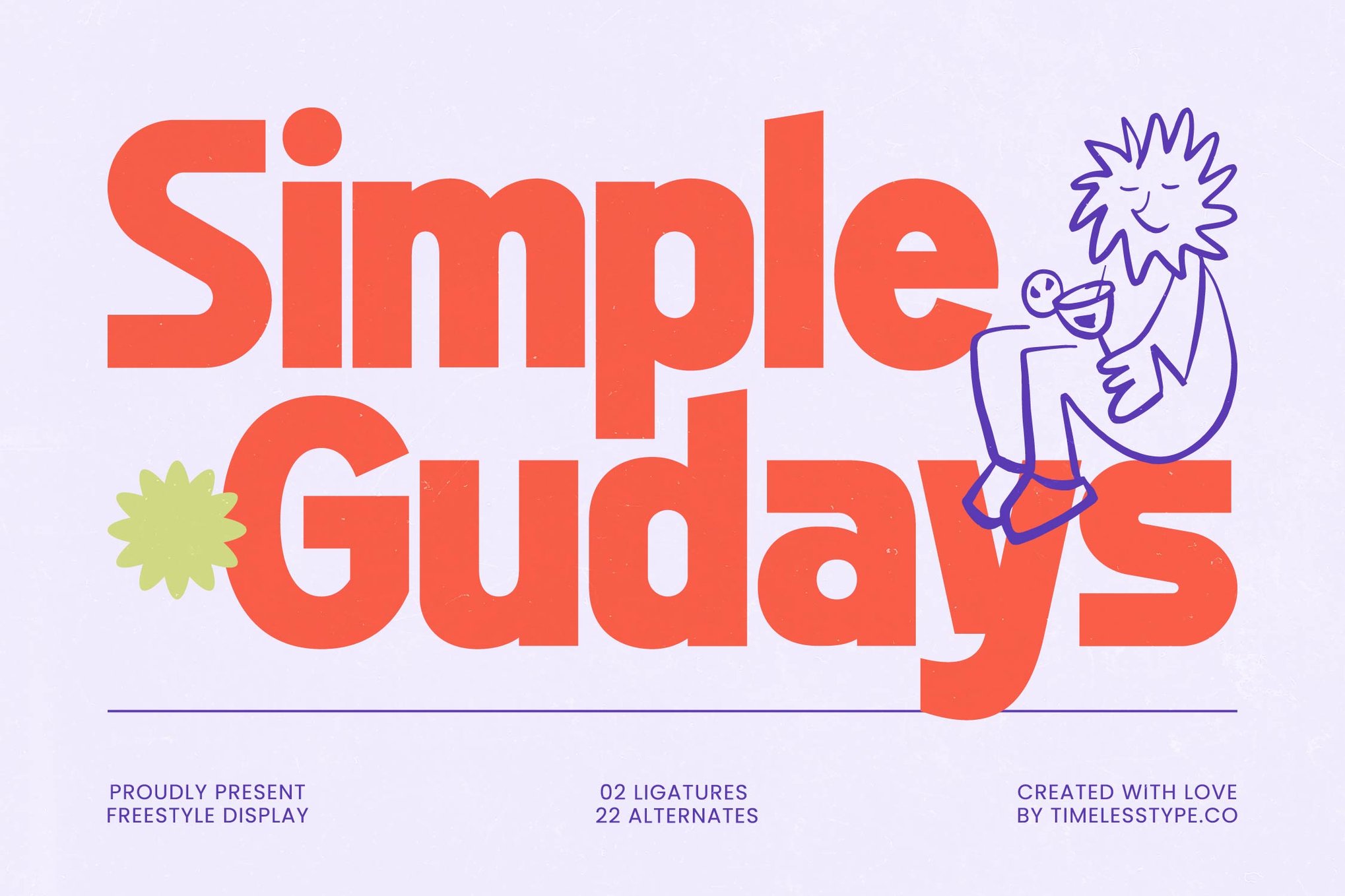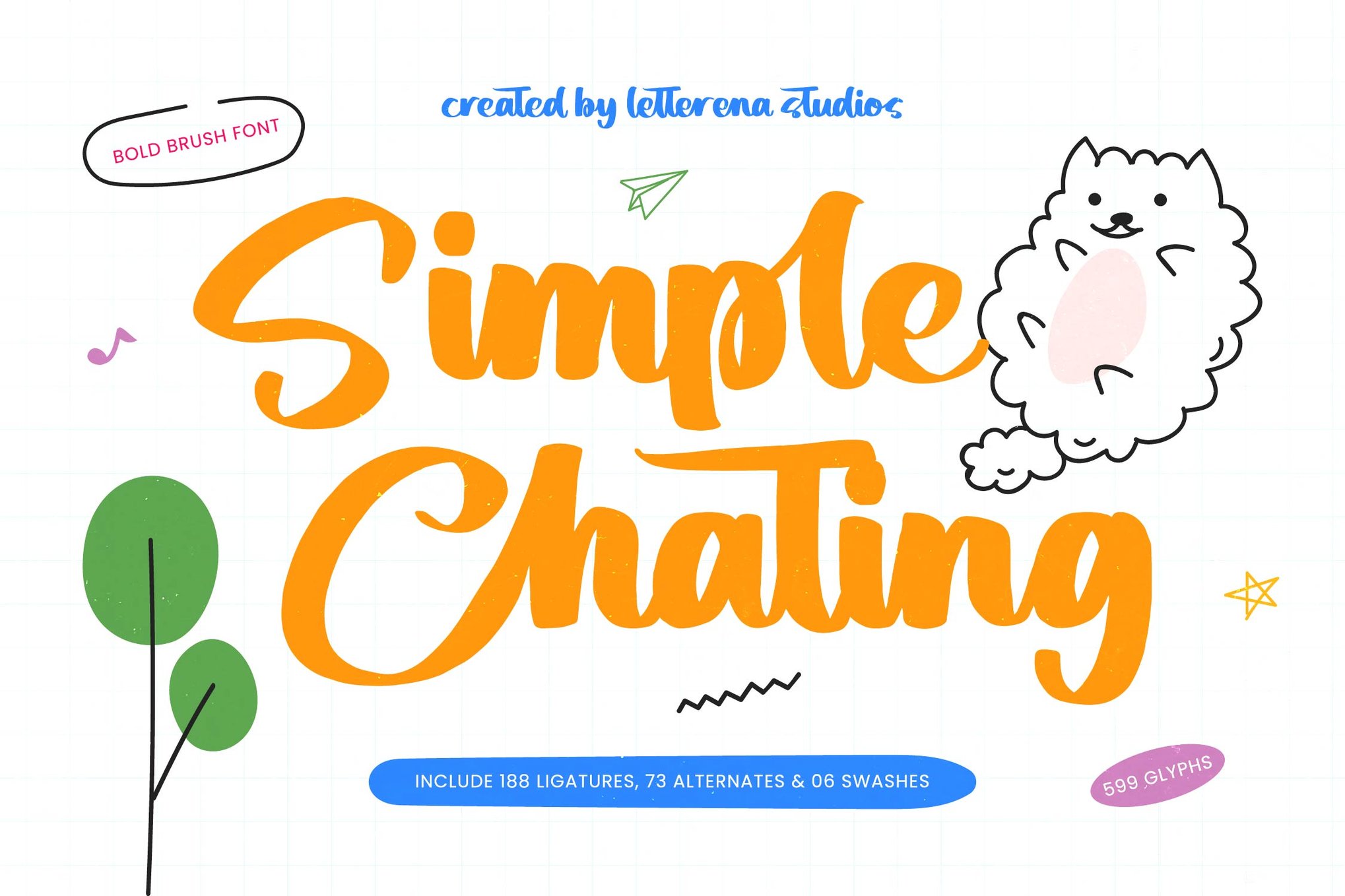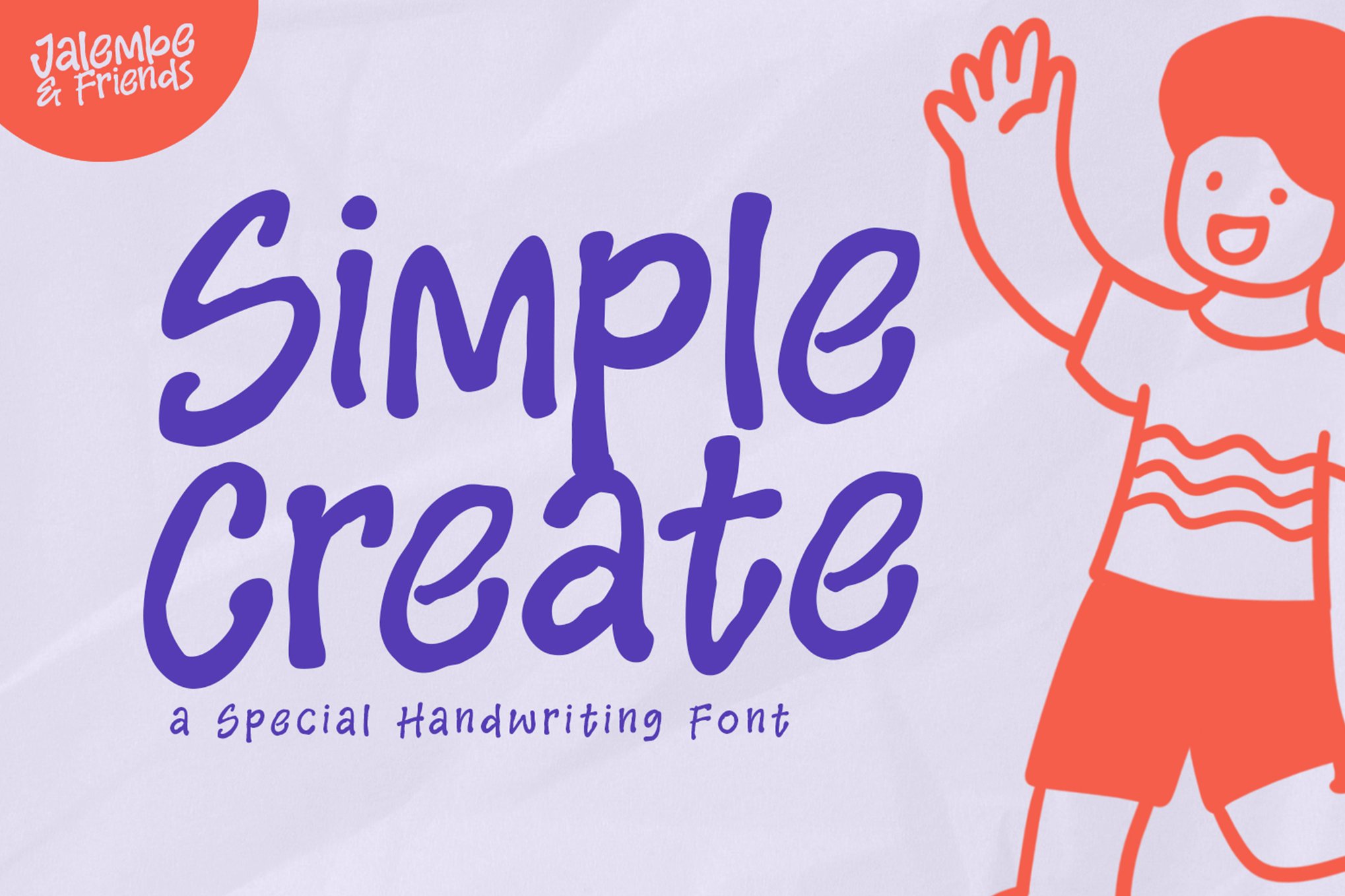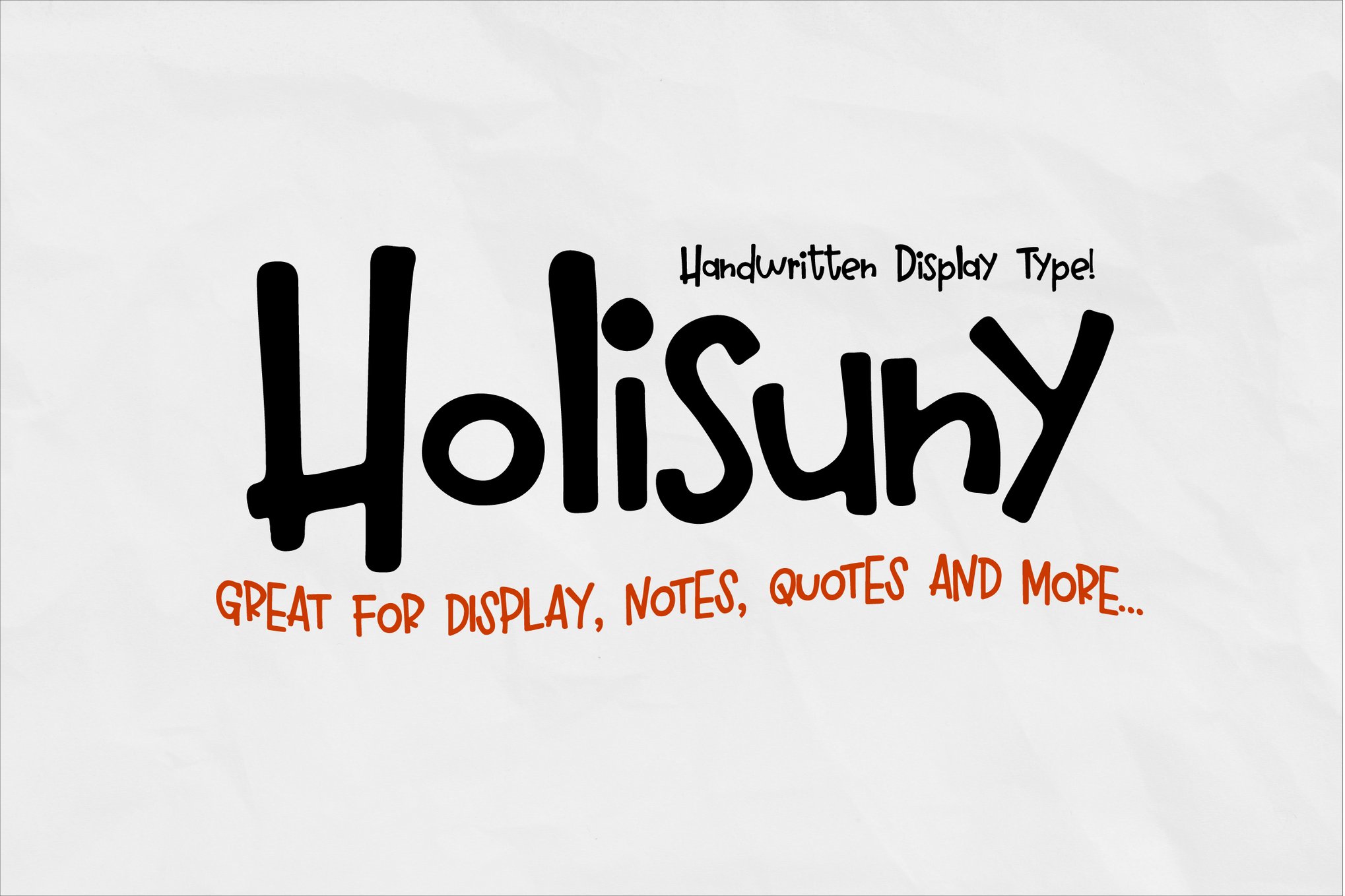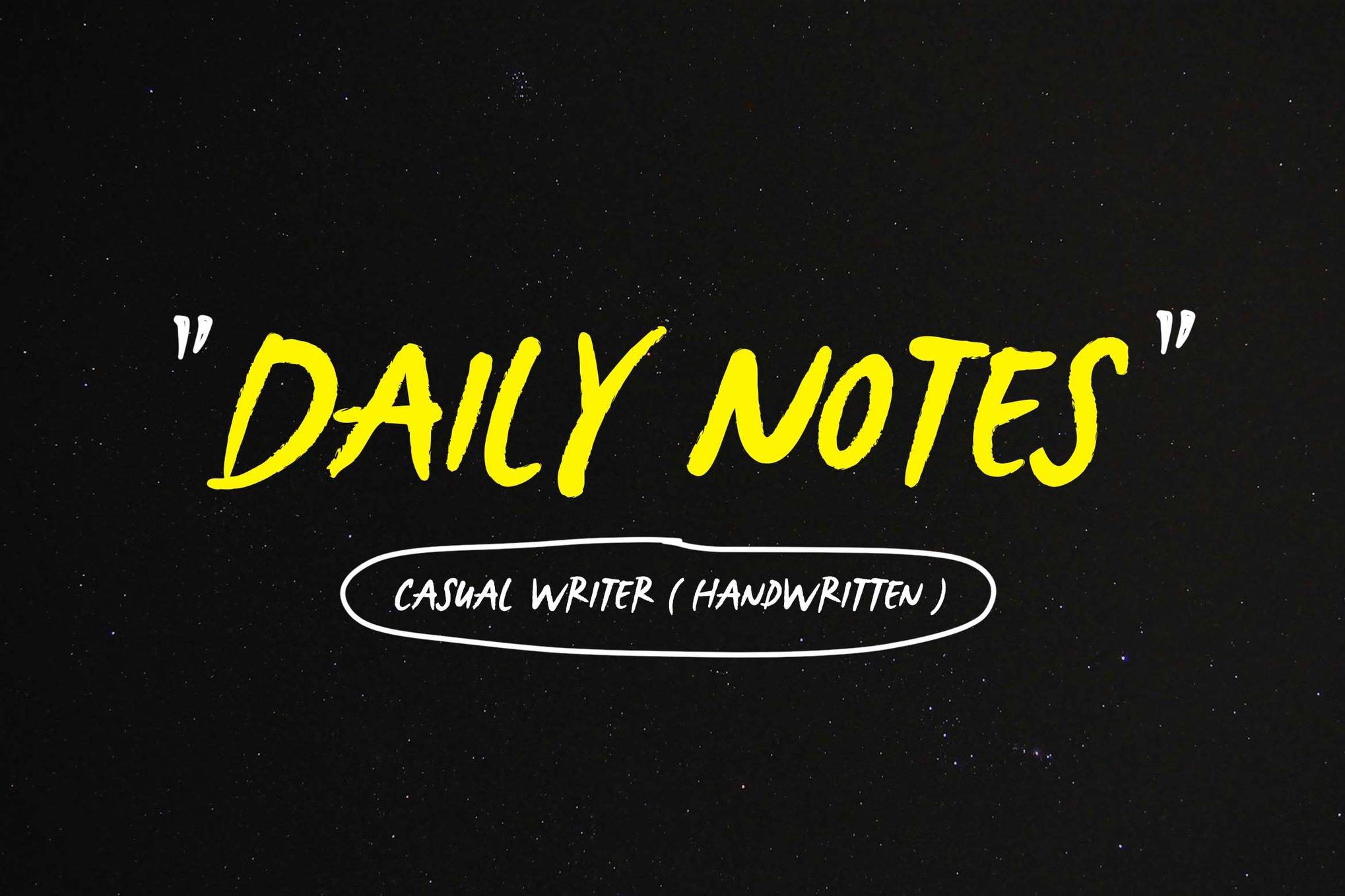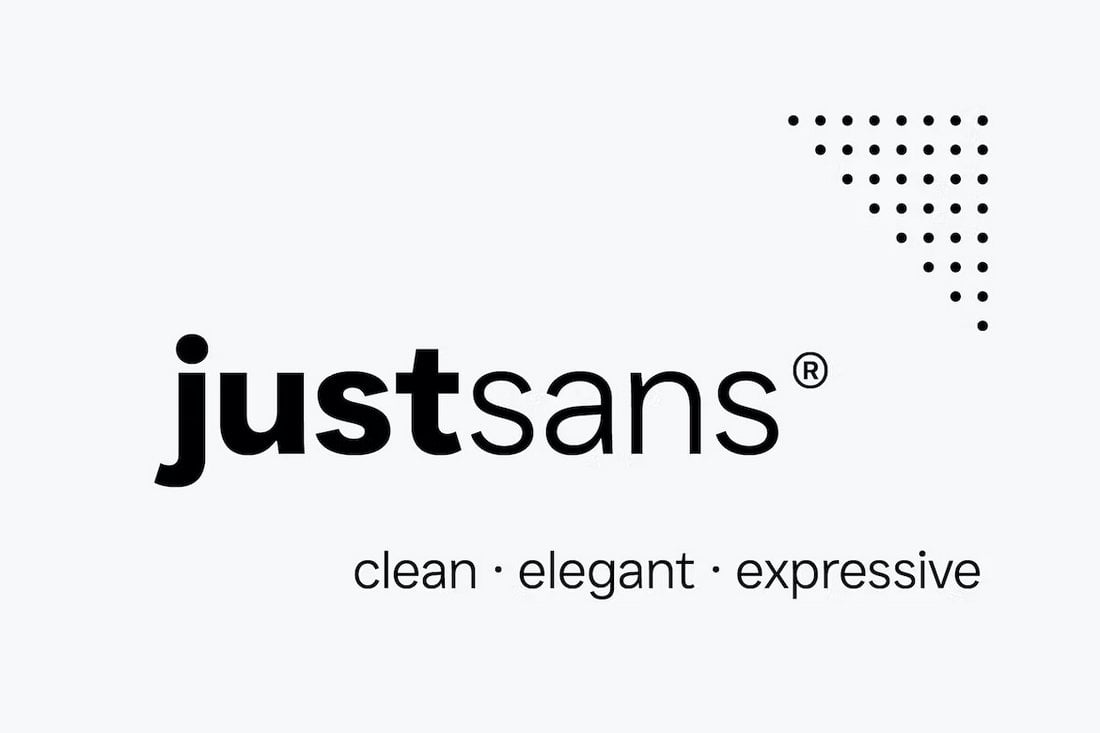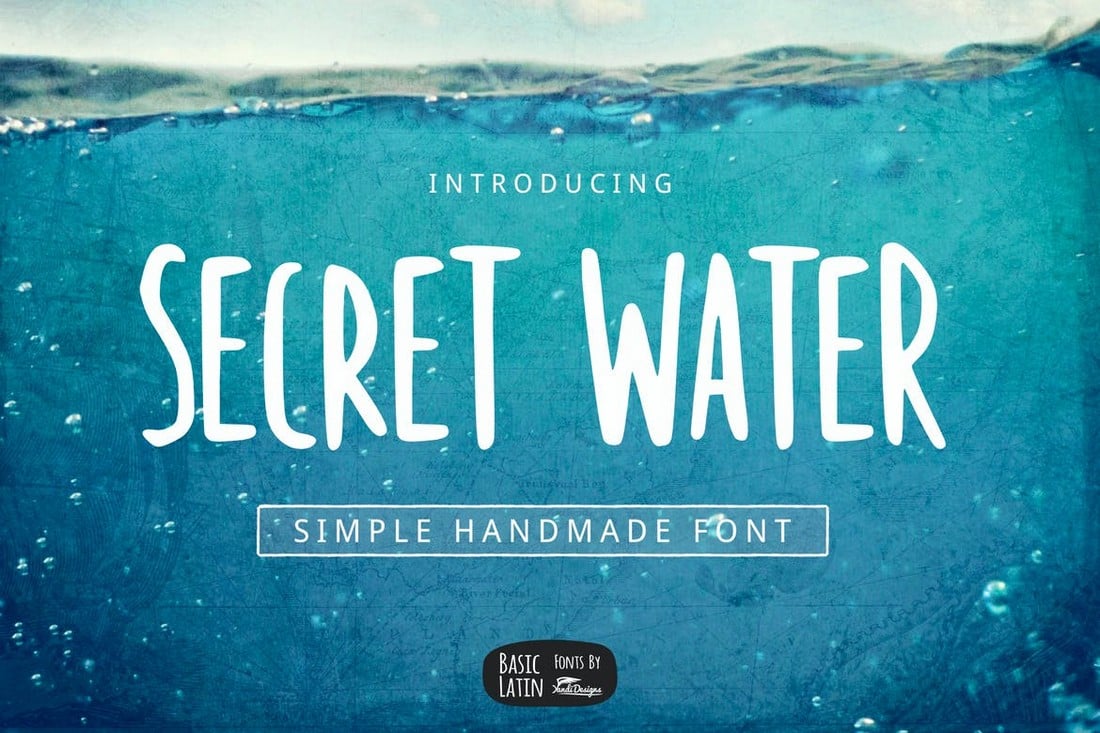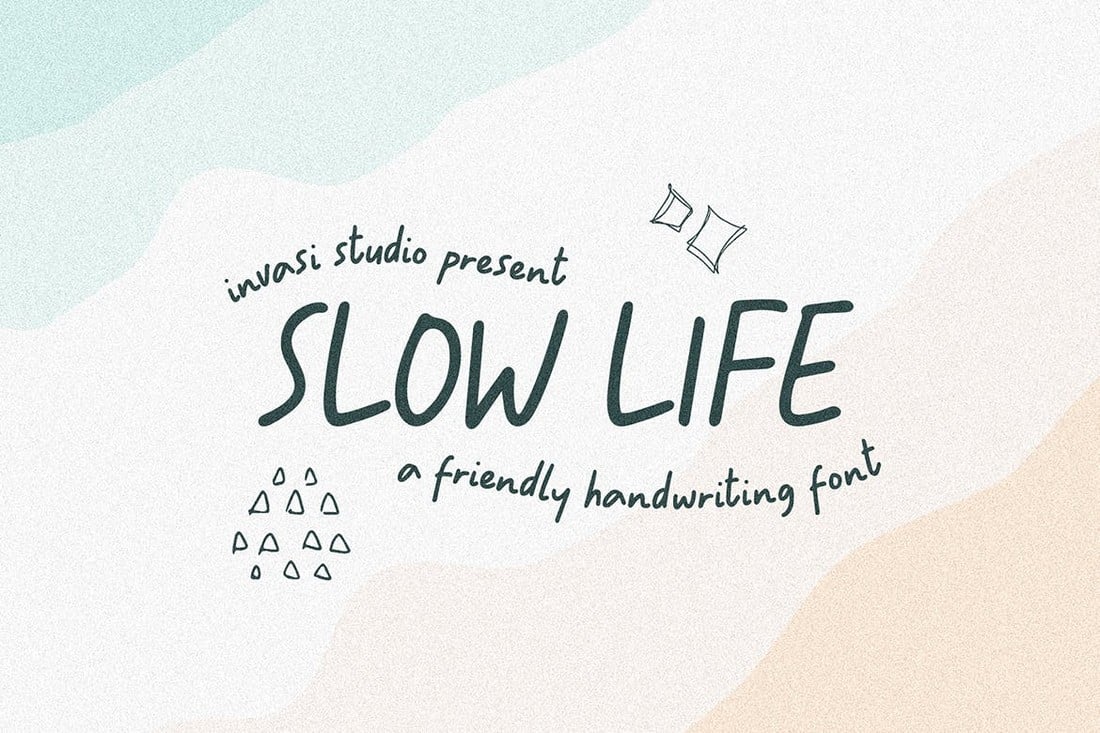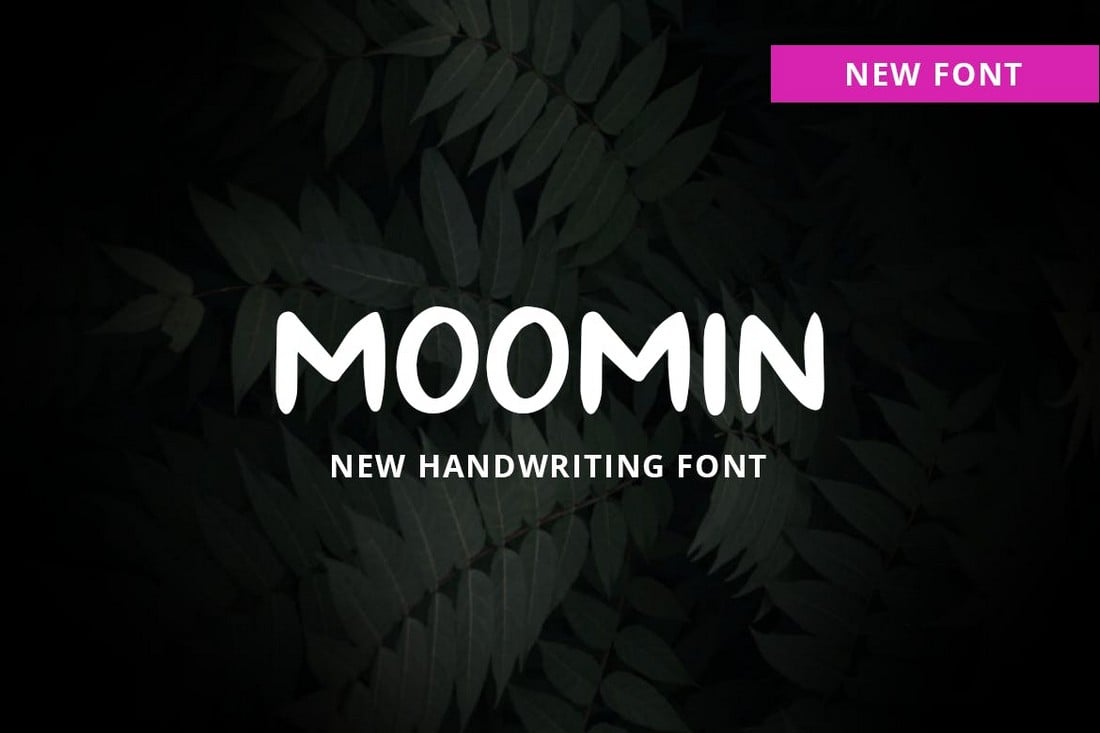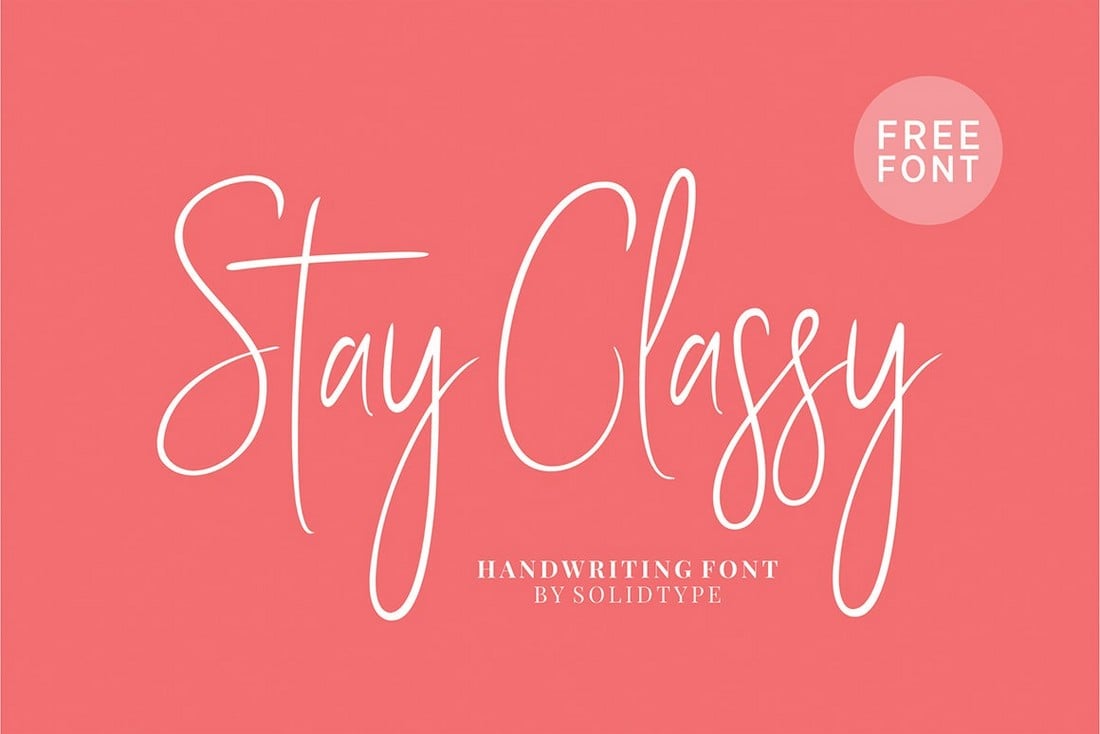
There are some fonts that give you a warm, friendly feeling and make you feel right at home. This collection is all about those friendly fonts.
Fonts are one of the few design elements that have the power to evoke emotions. With the right typeface, you could create a nostalgic feeling or even a happy, playful feeling through your designs. But not all fonts have this ability to evoke emotions.
We found a few fonts with friendly and simple designs that allow you to create a pleasant, peaceful, and familiar feeling through your titles, headings, and paragraphs. These fonts are great for creating designs with a personalized look and feel.
Explore the fonts collection below and see if you can find a simple font for your project.
Lovika – Simple Contemporary Font
Lovika is a stylish, modern sans-serif font with clean lines. Ideal for professional designs, it’s perfect for corporate branding, presentations, and web design, offering clarity, sophistication, and readability. Versatile and elegant, it can be used across digital and print media, enhancing your projects’ overall professionalism.
Sanswhimsy – Simple Friendly Font
Sanswhimsy is a bold, handwriting-inspired font that lends a unique, handmade touch to various design elements such as titles, quotes, and artwork. Its versatility makes it an outstanding choice for headlines, logotypes, and packaging, as well as for creative media including movies, games, and book covers.
Simple Gudays – Freestyle Friendly Font
Simple Gudays is a bold and playful freestyle font designed to bring a cheerful touch to any project. Its chunky shapes and soft edges make it ideal for children’s products, lifestyle branding, and social media graphics. With versatile ligatures and alternates, it offers expressive typography options for designers.
Simple Chating – Bold Simple Brush Font
Simple Chating is a bold brush font that blends playful, energetic character with easy readability. Its expressive brush strokes, smooth curves, and warm, approachable feel make it ideal for creative branding and dynamic projects. Featuring 188 ligatures and 599 glyphs, this font offers great stylistic flexibility and modern charm for any design, from social media graphics to eye-catching headlines.
Simple Create – Friendly Handwriting Font
Simple Create is a friendly handwriting font perfect for adding a cheerful touch to your designs. Ideal for logos, posters, and greeting cards, it includes OTF and TTF formats, standard glyphs, and numerals. It’s perfect for kid-friendly design projects as well.
Holisuny – Simple Handwritten Font
Holisuny is a charming handwritten font with natural, artistic strokes, perfect for adding a personal touch to your designs. Ideal for medium to large text, it includes alternative characters for creative versatility. It’s also great for adding a personalized look to your typography.
Daily Notes – Simple Handwritten Font
Daily Notes is a charming, versatile typeface that blends elegance with a modern touch. Ideal for diverse projects like logos, stationery, and wedding invitations, it captures both masculine and feminine aesthetics. Supporting a wide array of characters, it’s perfect for designers seeking a friendly, stylish font suitable for any creative endeavor or branding need.
Bango Tango – Fun Playful Font
Bango Tango is a delightful sans-serif typeface that adds a playful charm to any project. This cheery and engaging font with its smooth curves can turn ordinary projects into upbeat, fun and vibrant pieces. Its versatility makes it a fantastic choice for diverse projects like children’s books, social media graphics, branding or party invites.
Fascond – Simple Modern Font
Fascond is a simple and contemporary font with a minimalist gradient touch. Its streamlined, compact style offers immense versatility, making it great for a multitude of design projects. This typeface comes with various file types (Otf, Ttf, woff and woff2), and it excels in creating stand-out headlines, logotypes, or covers.
Mojored – Simple Friendly Font
Mojored is a unique and playful font that is as fun as it is flexible. With friendly, bouncy curves and a range of weights from thin to black, this font provides fresh versatility for brand identity, posters, social media, and more. Along with unique ligatures and multilingual support, Mojored expertly maintains crisp readability whilst adding energetic cheer.
Varena Rounded – Friendly Font
Varena is a simple font that beautifully fuses modern geometric design with an inviting feel. Its smoothly rounded edges and balanced proportions ensure clear readability, making it an excellent choice for websites, logos, and promotional materials. With its versatile appeal, it emits a professional, contemporary vibe while radiating warmth and accessibility.
Happy Season – Modern Playful Font
Happy Season is a lighthearted and versatile sans serif font. With a total of seven varied styles, its lively, friendly design shines with rounded edges that add a welcoming touch. It is highly suitable for trendy packaging labels, distinctive logos, bold headlines, and stylish poster designs.
Softsanic – Friendly Font
Softsanic is a friendly and versatile, rounded sans-serif font that emanates an abstract grunge style. Offered by Graphicook, it’s conveniently provided in Otf, Ttf, woff, and woff2 files. Ideal for an array of projects, Softsanic shines in uses ranging from headlines, logotypes and magazine layouts to packaging, game covers, and book designs, easily making any design pop.
Quick Notes – Friendly Handwritten Font
Quick Notes offers a lively, easy-to-read style ideal for adding a personal touch to your creative projects. With a set of uppercase and lowercase glyphs, numbers, symbols, punctuation, and multilingual support, it’s perfect for social media posts, branding, and more. It also provides ligatures for a seamless design experience.
Belmein Rounded – Friendly Font
Belmein Rounded is a modern, friendly font that unites geometric precision with soft, rounded edges for a welcoming feel. Its unique inktrap details further enhance clarity and print quality. Ideal for digital interfaces and contemporary branding, this font boasts versatility and impact.
Nothink – Simple Handwritten Font
This is a playful yet readable handwriting-style typeface offering organic authenticity. Its appealing imperfections lend warmth, character and a relatable approachability, ideal for projects needing a personal, casual ambiance. Especially suited to branding, quotes and posters.
Paradiso – Friendly Kids Font
Paradiso is a lively, sans-serif kids’ font with a robust personality and playful edge, ideal for projects that require a fun and joyful aesthetic. Perfect for children’s books, posters, and light-hearted designs, its quirky letterforms and rounded edges contribute to easy readability and a whimsical touch.
Well Played – Handmade Friendly Font
Well Played is a distinctive and friendly typeface with a heavy stroke and playful personality. Well suited for everything from logo design and social media to movie and book titles, this versatile font comes with multilingual language support, and adds a charming touch to both short and long texts.
Roundovy – Rounded Simple Font
Meet Roundovy: a condensed yet bold typeface with distinctively rounded letters. This versatile font comes with various file types, making it an excellent choice for numerous design projects – headlines, logotypes, posters, or even book covers. Roundovy can help create striking, attention-grabbing designs regardless of the context.
Organica – Fun Friendly Font
Organica is a playful, hand-drawn font with a distinctive style. This friendly font adds a lively flair to any design project, perfect for more relaxed and creative themes. With regular and rough variants, Organica provides flexibility in your design, whether you desire a clean appearance or a more textured feel.
Chalk Authen – Simple Marker & School Font
Chalk Authen is a hand-drawn, genuine display font that offers versatility for branding projects such as posters, logos and sports. Its unique style ensures it stands out in diverse contexts. This creative asset includes Chalk Authen in OTF, TTF, and WOFF formats.
Bread Mate – Cute Friendly Font
Bread Mate is a delightful, friendly font. Perfect for an assortment of purposes like logos, greeting cards, branding or posters, it promises to add a cheerful vibe to your creative projects. The package includes TTF, OTF, and WOFF files.
Transcript – Simple Handwritten Font
Transcript is a beautifully simple, handwritten script font. This versatile font is ideal for titles, logos, product packaging, branding projects, magazines, and social media. It’s also a great choice for wedding/event stationery or simply to embellish your background.
Mickeybow – Friendly Handwritten Font
Mickeybow is a warm, friendly handwritten font that can be an excellent fit for a range of usages. From titles to product packaging, from branding projects to social media posts, or even wedding invitations, Mickeybow can lend a personal, expressive touch.
Sansblend – Modern Friendly Font
The Sansblend is a distinct and playful font featuring a bold, modern handwriting style that radiates fun and creativity. Perfect for a range of applications such as headlines, quotes, and book covers, Sansblend includes a variety of file formats. It’s ideal for adding a handmade touch to your designs to make them stand out.
Gijsuy – Creative Friendly Font
This font has the perfect combination of playful and friendly design to help you craft amazing titles for posters, banners, flyers, websites, and all other designs in between. It’s especially perfect for kids-themed designs. The font includes uppercase and lowercase letters.
Little Apple – Cute Friendly Font
A cute and adorable font that will help make your greeting cards, book covers, and branding designs look much friendlier than ever before. This font is great for designing text and titles for all audiences.
JUST Sans – Modern Friendly Font Family
Just Sans is a modern font family that features a very clean letter design. You can also use it to add a casual and friendly look to various design projects. Seven font weights, several stylistic sets, OpenType features, and multilingual support are all included in this typeface.
Giugnia – Simple Friendly Font
The fun and stylish designs of the letters give this font a one of a kind look and feel. It’s perfect for making website headers look more friendly or crafting titles that look simple and cute.
Bowzer – Simple Kids Font
Bowzer is a simple font made with kids in mind. You can use it to craft big bold titles for kid’s event posters, school banners, product labels, packaging designs, and so much more. It also includes uppercase and lowercase letters.
Honey Shake – Free Friendly Handwritten Font
You can download this adorable font for free and use it with commercial projects at no charge. The font has a creative handwritten letter design and a beautifully flowing design that will make your titles look much more stylish.
Funny Bold – Friendly Font
This font comes with a fun and friendly letter design to allow you to craft titles that look much more attractive. This type of font is also great for talking about serious topics while maintaining a friendly tone. The font includes lots of swashes, ligatures, and alternates as well.
Friendly – Handwritten Friendly Font
Just as the name suggests, this font features a very friendly and quirky design that will give a fresh new look to your titles. It’s great for posters, flyers, banners, and even logos. The font comes with uppercase and lowercase letters with a very unusual design for the letter R.
Simple Line – Minimal Friendly Font
A simple and minimal font for you to use with your professional design projects. This font has a very soothing style that will fit in nicely with quote posts, modern posters, and custom T-shirts.
Bad Luck – Simple Tattoo Font
You can use this font to design modern tattoo designs with a more simple and clean look. It’s especially suitable for feminine tattoo designs. It’s great for crafting titles for CD covers, book covers, and even product labels as well.
Choco Bold – Free Friendly Font
This font comes with a friendly letter design that’s ideal for making designs with a classic and vintage theme. It has bold letters with decorative elements. The font is free to use with your personal projects.
Hey Brothers – Stylish Friendly Font
Handwritten fonts are the perfect choice for adding a bit of personality to your designs. They create a unique and friendly look that’s unmatched by any other font. This font has all the same qualities of a great handwritten font. It’s also very playful and casual, making it a great choice for fashion and lifestyle designs.
LUPINES – Cute Handwriting Friendly Font
Lupines is another simple handwriting font with a cute and friendly letter design. The skinny and narrow characters of the font will help you create titles and headings that look very natural. The font is especially perfect for product labels, greeting cards, and even logo design.
Secret Water – Handmade Simple Font
When you’re looking for inspiration to design the perfect title for a poster or craft a heading in a flyer, you can never go wrong with a simple font that has tall and narrow letters. That’s why this font is perfect for designing big, bold titles while maintaining a simple look and feel.
Slowly Life – Friendly Handwritten Font
Slowly Life is one of the friendliest fonts we’ve seen. The clean letter design will instantly give you a calming feeling that will simply soothe your soul. It’s probably that handwritten letter design. The font can be used with various styles of designs but it’s most suitable for lifestyle designs, product packaging, and greeting cards.
Alma Sans – Minimal & Simple Font
If you’re looking for a simple font for business or professional designs, this is one of the best fonts you can use with your projects. Alma Sans is a low contrast font that comes with a minimalist letter design. Its letters also feature rounded edges that help to create an overall simple and friendly look.
Rounded – Free Simple Font
This is a free font that comes with a simple and creative letter design. Just as the name suggests, it has rounded corners with overall curvy characters. You can use it for free with personal and commercial projects.
OpenDyslexic – Free Dyslexic-Friendly Font
You should always seek ways to make your designs more accessible to people with disabilities. You can start by downloading this free font. It’s a dyslexia-friendly font that offers an improved reading experience to people with dyslexia. The font is free to use however you like.
Malvie – Casual Friendly Font
Malvie is that type of font you commonly see on T-shirt designs, packaging designs, or agency logo designs. It has that stylish swinging stroke design that helps to add a casual and friendly look to any design. This makes the font a solid choice for modern brands, especially food, design, and urban fashion brands.
Book Worm – Simple & Friendly Font
Book Worm is a casual and friendly font that features a set of characters that’s been hand-lettered with a paintbrush. It gives this font a unique identity that will surely add a personalized look to your designs. The font includes uppercase and lowercase letters with ligatures.
Klop – Friendly Rounded Font
The chunky and bold letter design of this font makes it look quite friendly and fun. It’s the perfect combination for making big titles for posters, banners, book covers, and even T-shirts, especially for kid-friendly designs. The font comes with lots of alternate glyphs and multilingual support as well.
Kiddo – Handwriting Simple Font
Another handwriting font with a simple and friendly design. This font features tall, narrow, and thin letters that simply create a unique minimalist look. Even though it’s titled Kiddo, this font also fits in perfectly with business card designs, labels, and lots of other designs for grown-ups.
Moomin – Simple Handwriting Font
Moomin is a beautiful handwriting font that features a set of simple and minimal letters. It has a very creative look that will make your designs stand out. This font is most suitable for designing fashion brand logos, T-shirt designs, greeting cards, and poster titles.
Stay Classy – Free Simple Script Font
A simple handwriting font with a beautiful script design. This font is suitable for greeting cards, social media posts, and so much more. You can actually use it for free with both personal and commercial projects.
Helio – Free Simple Brush Script Font
Another simple free font featuring a brush script letter design. This font includes both uppercase and lowercase letters. And you can use it completely free with personal and client projects.
Murky – Handwritten Simple Font
Murky is a simple font with a handwritten letter design. This font also has tall and narrow characters that are most suitable for designing titles for posters and flyers. It’s also great for greeting and invitation cards.
Belovia – Simple Beauty Font
Belovia is a beautiful font that comes with a simple and feminine design. The font also features handwriting style characters with a unique style of its own. This font is ideal for branding designs in the beauty and fashion industries.
Meowy – Fun & Friendly Font
Working on a Christmas-themed greeting card, a school banner design, or a logo design for a pet store? Then be sure to download and experiment with this font. It features a very friendly and fun letter design that will simply make your designs look more exciting.
The Kiddos – Fun Handwritten Friendly Font
Just as the name suggests, this font will bring out the kid inside everyone. It has a fun letter design that is perfect for kid-friendly designs, educational designs, as well as designs for grown-ups. The font includes both uppercase and lowercase letters with ligatures and symbols.
Lunarie – Handmade Simple Font
Lunarie is a creative title font that allows you to design titles, headings, and more with a minimal and simplistic design. The font is perfect for everything from logos, signage, posters, T-shirts, and more. It’s especially a great font for designing quote posts for social media.
Free Simple Minimalist Font
This is a very simple and minimalist font that’s just the perfect choice for DIY projects like printing a custom mug, T-shirt, or even a personalized greeting card. You can use it for free with your personal projects.
Simple Thing – Free Handwriting Font
The elegantly flowing design of this font makes it one of a kind. The script handwriting letter design mixed with the simple letters is a great combination that suits this font well.
Daily Notes – Minimal, Simple Font
This font will make your typography look more like notes scribbled on a notepad. It’s perfect for giving a personal and handwritten look to your title and heading designs, especially for greeting cards, invitation, and flyer designs.
Simply Diet – Clean Handwritten Simple Font
Simply Diet is a beautiful handwritten font that features a clean and simple letter design. It looks perfect on product packaging designs, labels, T-shirts, and everything in between. The font is ideal for feminine designs as well.
Simplicity – Quirky Friendly Font
A font with a set of fun and quirky characters for crafting wild and stylish designs. You can design casual and fun T-shirts with the font. It comes with both uppercase and lowercase letters.
He Loves Me – Skinny Simply Font
Another simple and minimal font with a set of tall and narrow letters. This font can be used to design greeting cards, mug prints, quote post designs, and much more. It includes both uppercase and lowercase letters as well.
Hidalgo – Friendly Handwriting Font
Hidalgo is a very creative and friendly font that has a hand-crafted look and feel. It will surely make your designs look a lot more personalized. The font also includes ligatures and comes in WebFont versions.
Grembo Duo – Warm & Friendly Fonts
Grembo is a pair of beautiful fonts that includes an all-caps sans serif font and a script font. Both fonts feature warm and friendly designs that also go perfectly together.